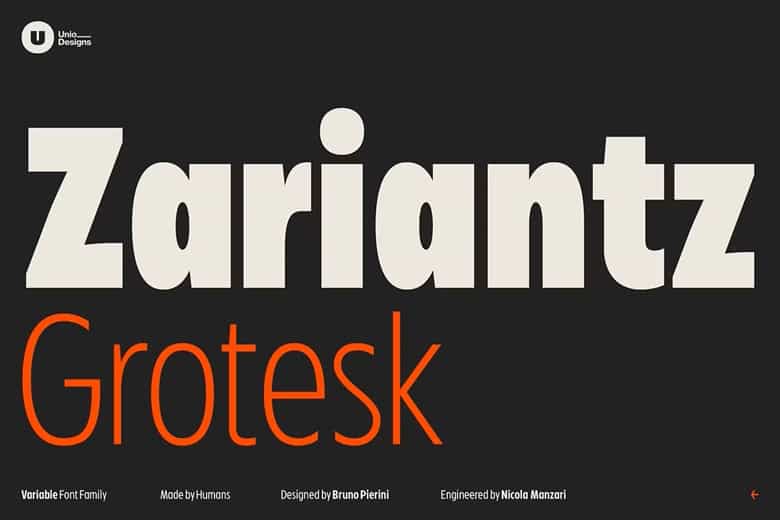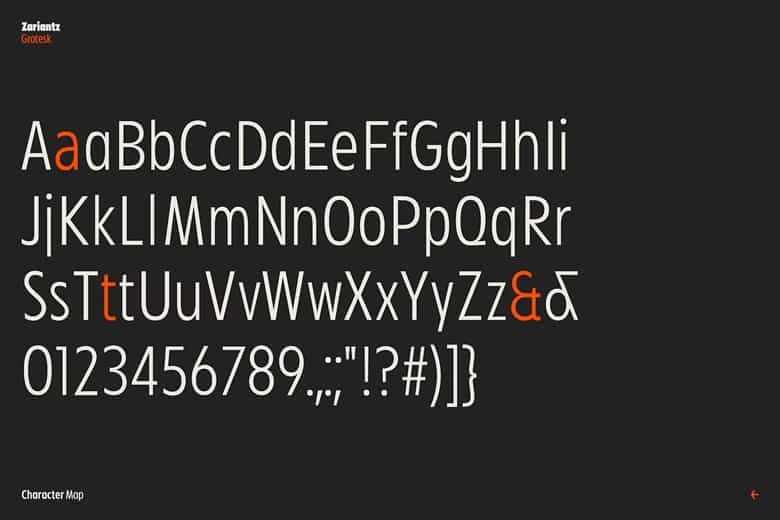
Zariantz Grotesk Variable is a modernistic sans serif font that is based on an idle stroll in the streets of Casamassima, Puglia where a remembrance plaque has a dedicated Hrand Zariantz, an Armenian-Italian writer, poet, and journalist. It was that moment when an idea of such an adaptable variable font as meeting the current challenges of typography appeared.